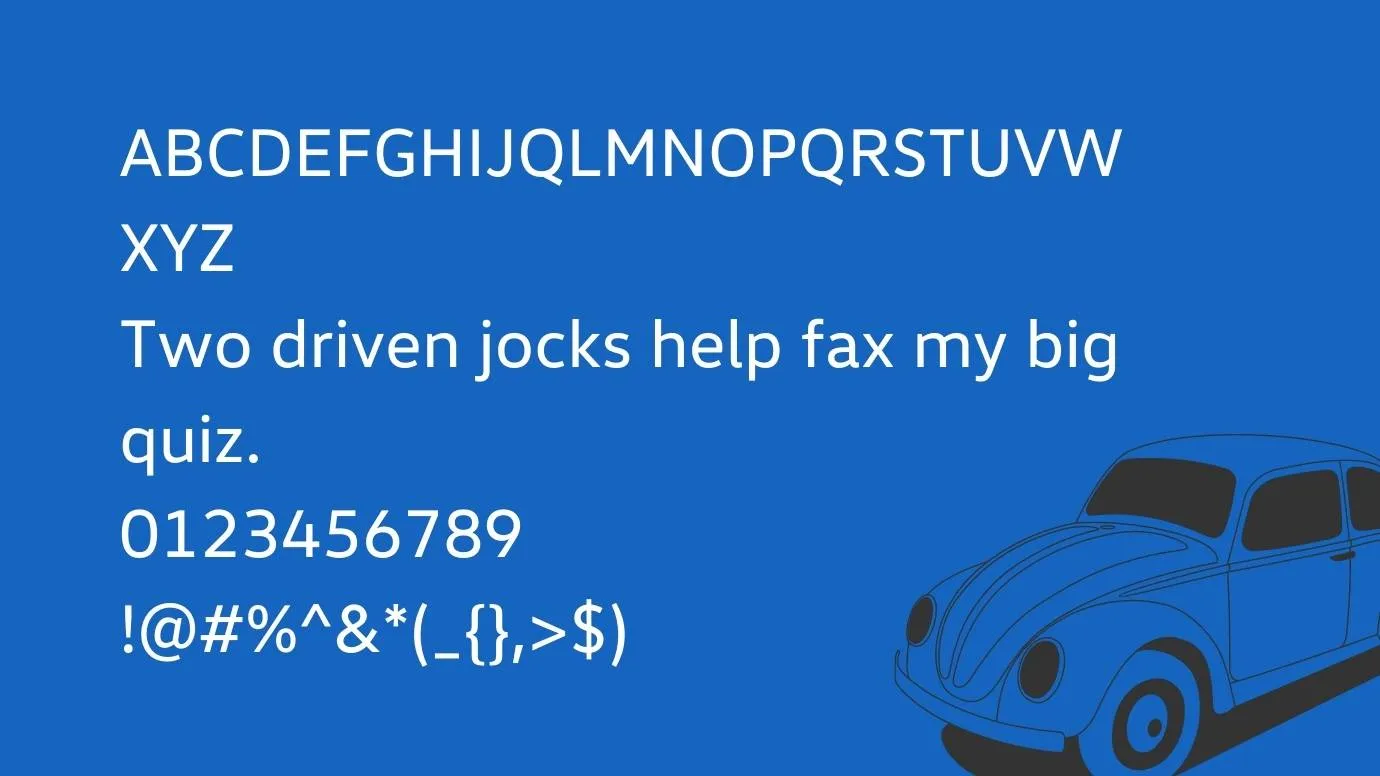
Volkswagen font is a logo-based font that has been inspired by the typeface that was used in the logo of the Volkswagen vehicle manufacturing company. The cars of this company are being supplied all over the world and it’s quite popular. The font that was used in the logo of this company was also getting demand by designers from all over the globe. The original typeface that was used in the logo is VAG Rounded font. This font style has a Semi-bold and prominent texture appearance that is not suitable for small size screen displays and for long texts.
But this font is perfect to create amazing headings and displays. It is appropriate to use it on large screen display sizes. With its unique and amazing display characters, you can create amazing designs on your creative websites and projects. This font style is also famous for its copy and paste abilities. This textured style has a fashionable and creative texture visualization, making it ideal for use in trendy and creative designs. This typeface can also be used to make beautiful and trendy thumbnails for your YouTube channels.
Creator of Volkswagen Font
VAG Rounded font was the original font that was used in the logo of this company. Gerry Barney one of the famous font designers has created this font. He has also created many of the famous typefaces that are used in a number of designs.
This font style has been constructed with a single style. The features of this single style have been comprised of include uppercase letters, lowercase letters, glyphs, punctuation, digits, symbols, and special characters are all included in this family of styles, as well as language support.
View of Volkswagen Font
| Name | Volkswagen Font |
| Style | Logo |
| Designer | Gerry Barney |
Is Volkswagen font a good font?
This font style has a bold and creative appearance that is utilized in a number of designs and projects. So, yes this font style is a good font.
What font is similar to the Volkswagen font?
There are a number of fonts that are similar to this font style. But we have noticed that the Gaslighter Font has the most similar features to this font style.
Who designed Volkswagen Font?
This logo-based font has been created by Gerry Barney. He has also created many of the famous fonts that have made his worth in the typographic world.